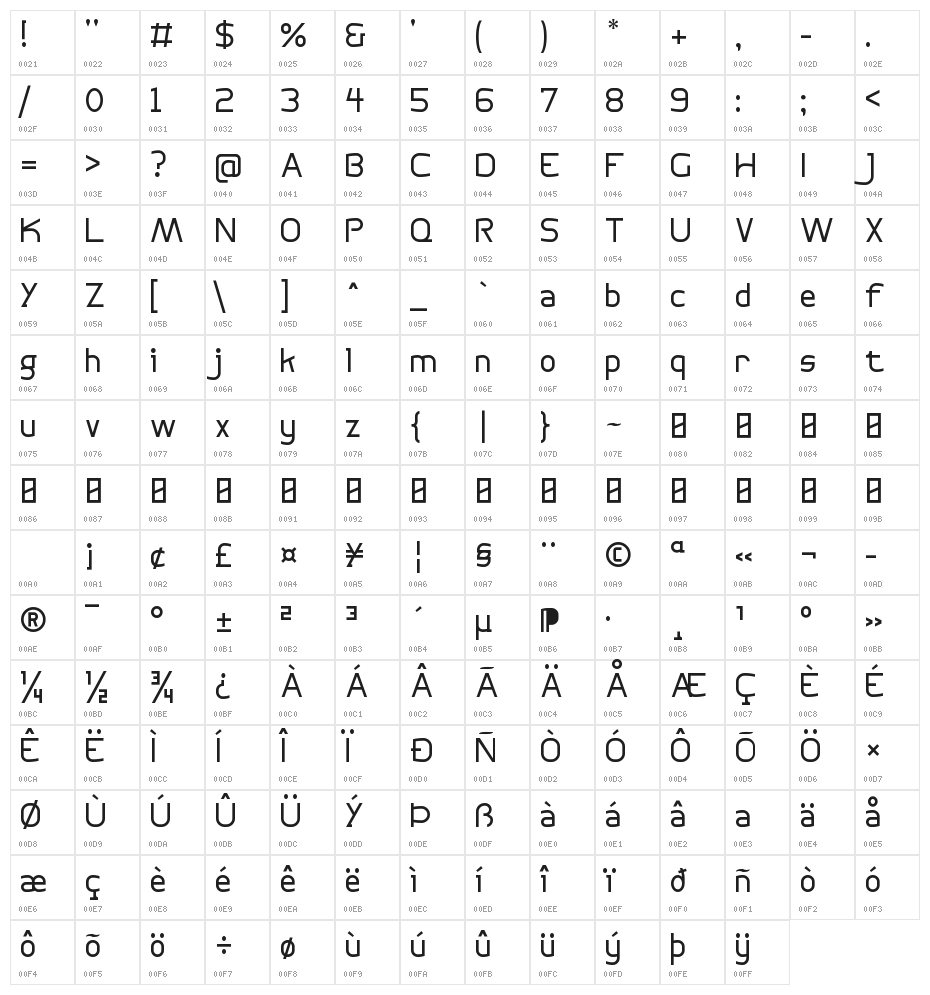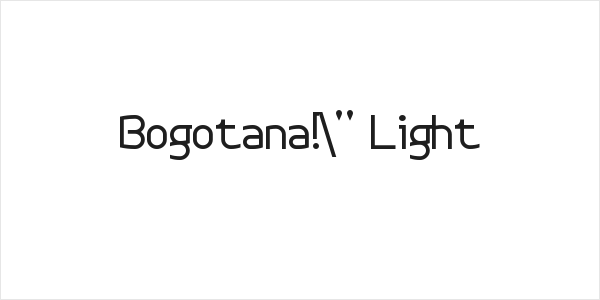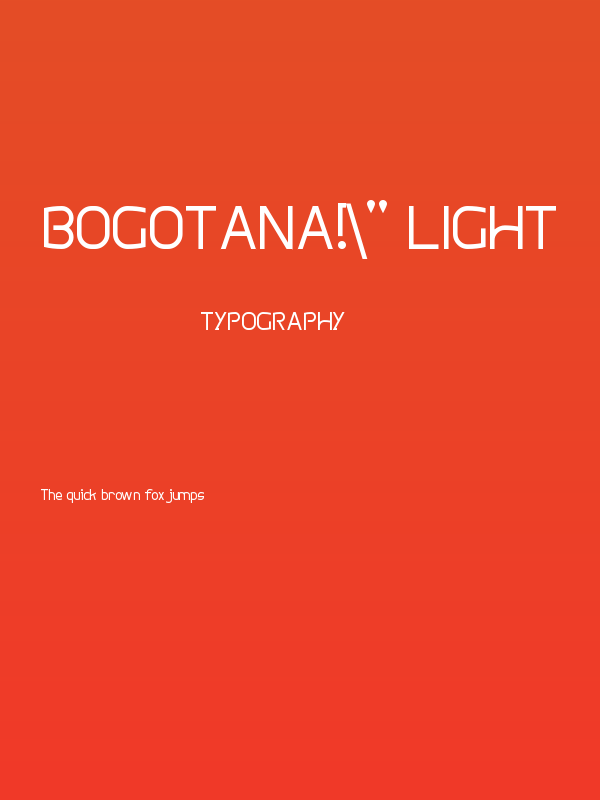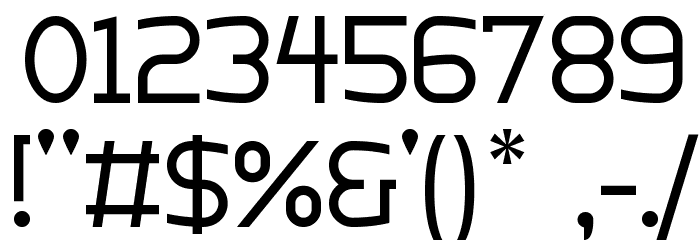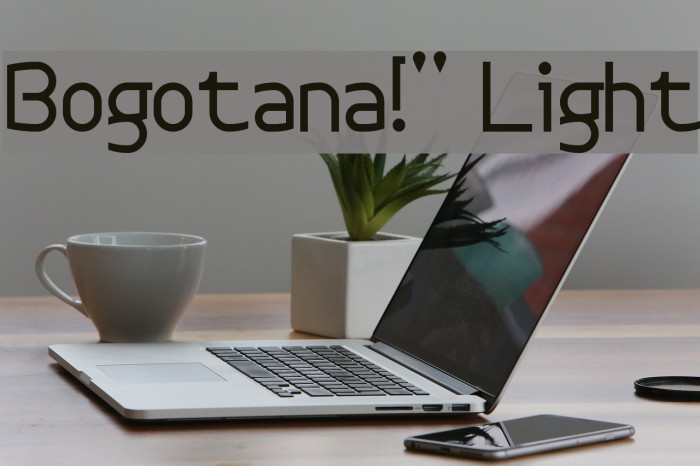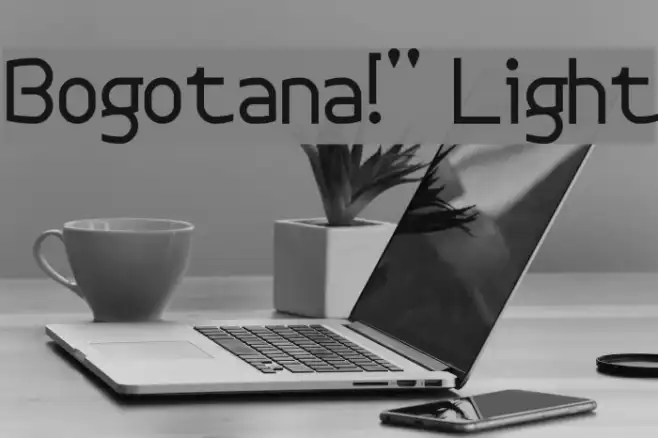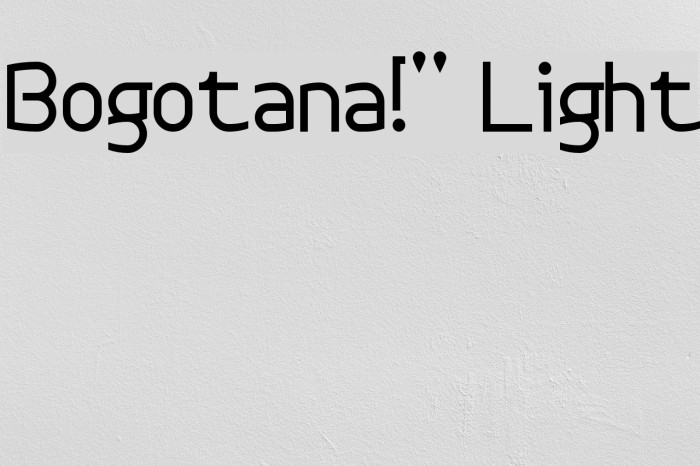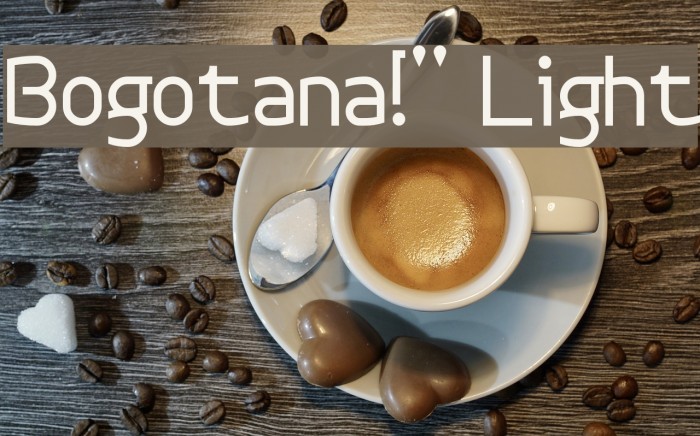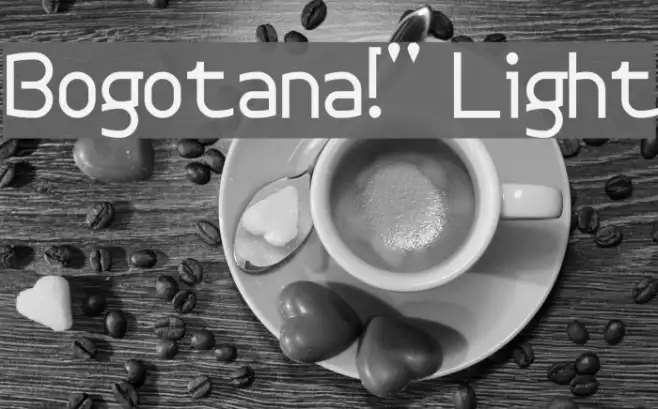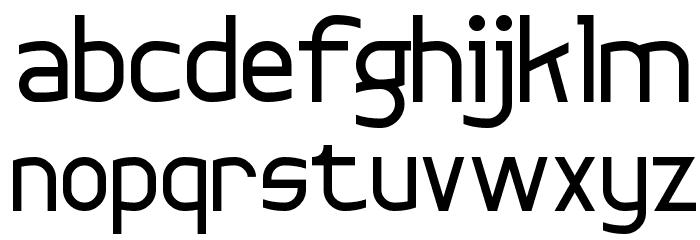
Bogotana!" Light Font
Bogotana!" Light Description
This font features a modern, geometric sans-serif style with clean lines and a minimalist aesthetic. The characters are well-proportioned, offering a balanced look that is both functional and stylish. The uppercase letters have a uniform height, while the lowercase letters maintain a consistent baseline, enhancing readability. The numerals are distinct and align well with the overall design, making them suitable for various applications. Special characters are included, providing versatility for different contexts. The font's light weight and open structure make it ideal for projects that require a contemporary and airy feel.